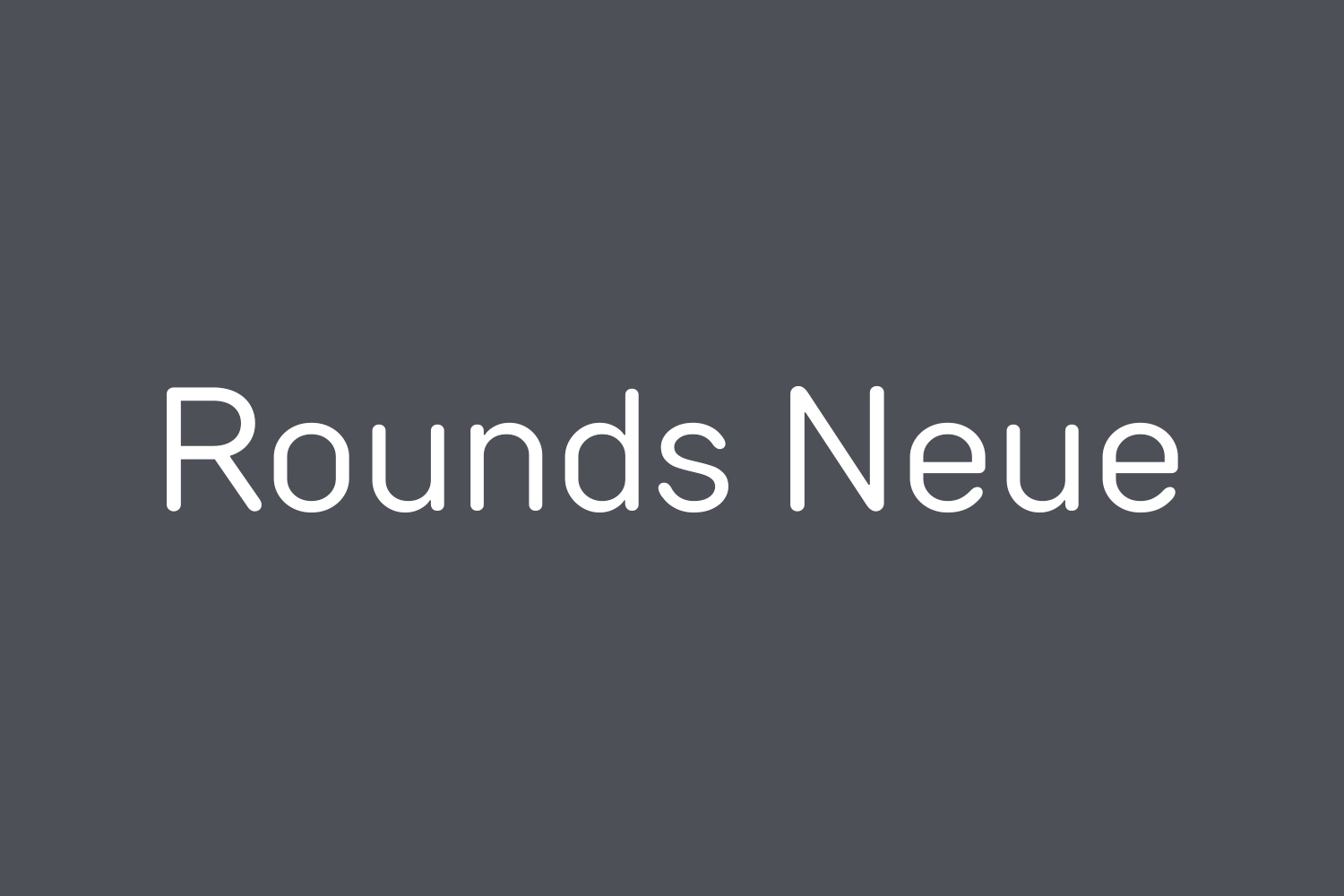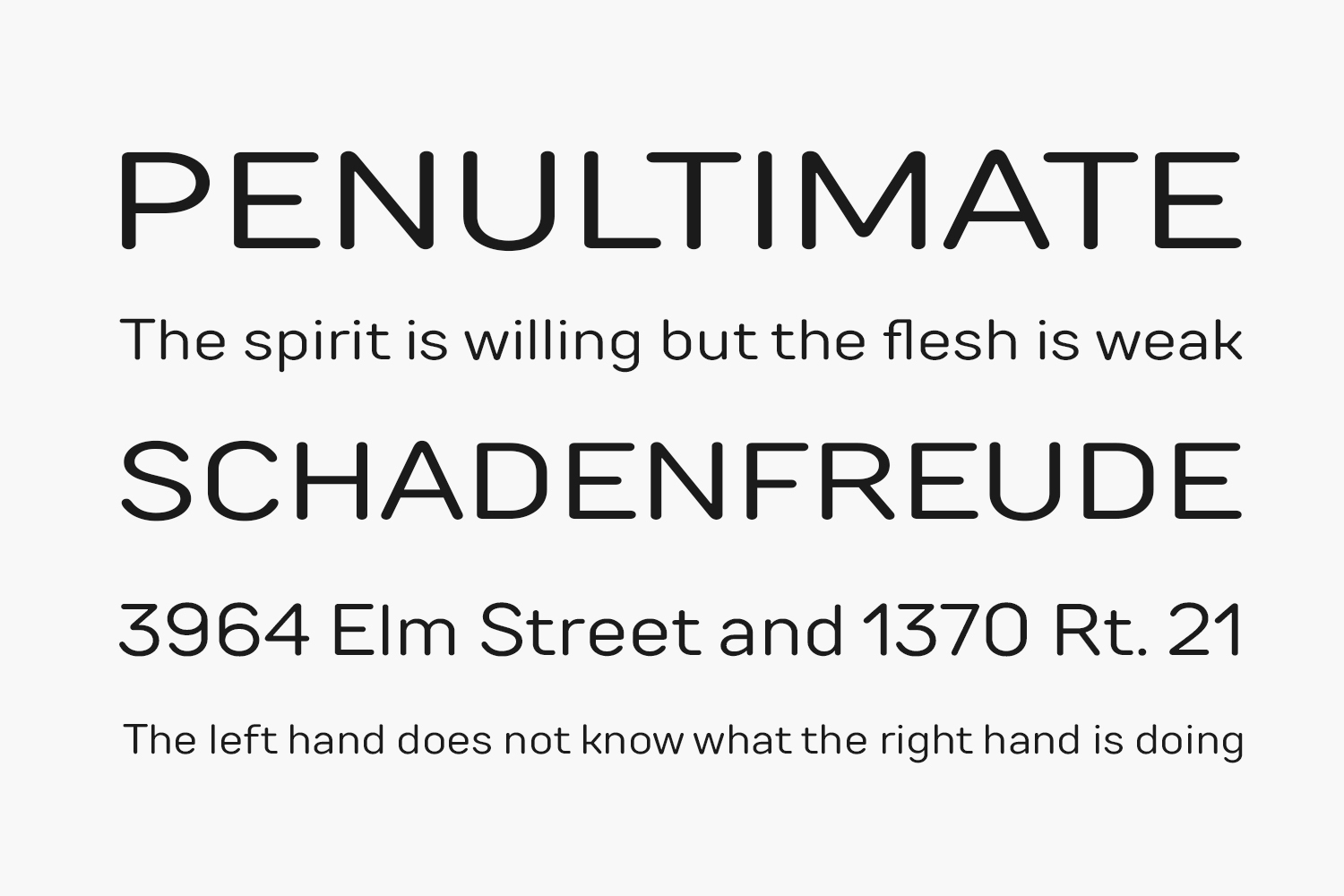
Rounds Neue Free Font
Rounds Neue is a minimalist and modern rounded sans-serif typeface designed by UI Creative to bring softness and clarity to your creative projects. With its smooth corners, balanced proportions, and clean lines, this free decorative font works perfectly for crafting sleek logos, digital interfaces, magazine headers, brand kits, and more. Available in TTF format — ideal for designers seeking a friendly, readable font that enhances legibility without sacrificing style.
Why Choose Rounds Neue?
• Clean Rounded Style: Combines soft geometry with minimalist design for a modern, approachable appearance.
• Ideal for UI & Editorial Design: Perfect for websites, app typography, or blog headers needing a crisp, modern look.
Where to Use Rounds Neue?
Rounds Neue shines across a variety of design applications:
• Logos & Brand Identity: Adds sophistication to brand identities for startups, lifestyle blogs, or minimalist studios needing a clean tone.
• Digital Interfaces: Ideal for web headers, landing page buttons, or mobile app text where clear communication is essential.
• Packaging Design: Enhances product tags on artisanal goods, clothing labels, or food packaging requiring a modern look.
• Social Media Graphics: Creates bold text overlays for Instagram Stories, TikTok videos, or YouTube banners with a sleek presence.
• Editorial Headers: Stands out in blog titles, magazine covers, and banners with a crisp, stylish charm.
Design Tips with Rounds Neue
Designed by TypeType Foundry